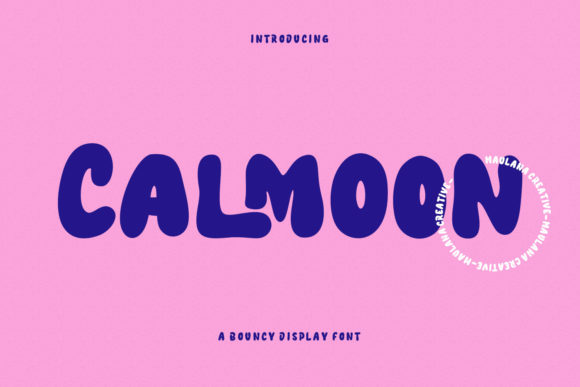
Calmoon: A Bouncy Handwritten Display Font
Calmoon is a unique bouncy handwritten display font that brings a playful and creative energy to any design. With its bold bulb stroke and fun character, Calmoon adds a distinct personality to text, making it ideal for a wide range of applications. Whether you're working on a logo, social media post, movie title, or book cover, Calmoon offers a fresh and dynamic look that stands out.
Why Calmoon Matters for Different Audiences
Calmoon appeals to a broad audience, from beginners to professionals, each finding value in its versatility and style. For designers, it provides a tool to express creativity and add visual interest. For educators, it can make materials more engaging and approachable. For entrepreneurs, it helps create a memorable brand identity. The font's flexibility makes it suitable for both short and long text, offering a cohesive look across various projects.
How Beginners Can Benefit from Calmoon
If you're just starting out in design or typography, Calmoon can be a great addition to your toolkit. Its bouncy and friendly appearance makes it easy to use, even if you're not an expert. Beginners can experiment with different layouts and see how the font transforms their work. It’s also a good way to learn about the impact of typography on visual communication.
Experienced Users and Creative Professionals
For experienced designers, Calmoon offers a fresh alternative to standard fonts. Its bold bulb stroke and subtle ligatures give it a handcrafted feel that can elevate any project. Whether you're creating a logo, designing a website, or working on a marketing campaign, Calmoon adds a unique touch that sets your work apart. It’s also a great choice for those looking to add a personal or artistic flair to their designs.
Business Owners and Marketers
Business owners and marketers can use Calmoon to create eye-catching logos, social media graphics, and promotional materials. Its playful yet professional look makes it suitable for a variety of industries, from fashion and entertainment to education and technology. By incorporating Calmoon into branding efforts, businesses can establish a strong visual identity that resonates with their target audience.
Educators and Content Creators
Teachers and content creators can benefit from Calmoon by using it to make educational materials more engaging. Whether it's a lesson plan, presentation, or online course, the font’s friendly and approachable style can help capture attention and improve readability. It’s also useful for creating visually appealing content for blogs, videos, or social media posts.
Hobbyists and Personal Projects
Hobbyists and individuals working on personal projects can use Calmoon to add a creative touch to their work. From DIY crafts to personal websites, the font’s unique style allows for self-expression and customization. It’s a great way to make personal projects stand out and reflect individuality.
Practical Uses for Calmoon
Calmoon is versatile enough to be used in a variety of contexts. For example, a small business owner might use it for a logo or packaging design, while a filmmaker could use it for a movie title. A writer might choose it for a book cover, and a social media manager could use it for posts and banners. Its adaptability makes it a valuable asset for anyone looking to enhance their visual communication.
Choosing the Right Font for Your Needs
When considering whether Calmoon is right for your project, think about the message you want to convey. If you’re aiming for a fun, energetic, or creative vibe, Calmoon is an excellent choice. However, if you need a more formal or traditional look, other fonts may be more appropriate. Understanding the tone and purpose of your work will help you decide if Calmoon fits your needs.
Final Thoughts on Calmoon
Calmoon is more than just a font—it’s a creative tool that can bring life and personality to any design. Its unique style and versatility make it a valuable resource for anyone involved in visual communication. Whether you're a beginner exploring typography or a professional seeking a fresh look, Calmoon offers something for everyone. By understanding how it can be applied in different contexts, you can make an informed decision about whether it aligns with your goals and projects.